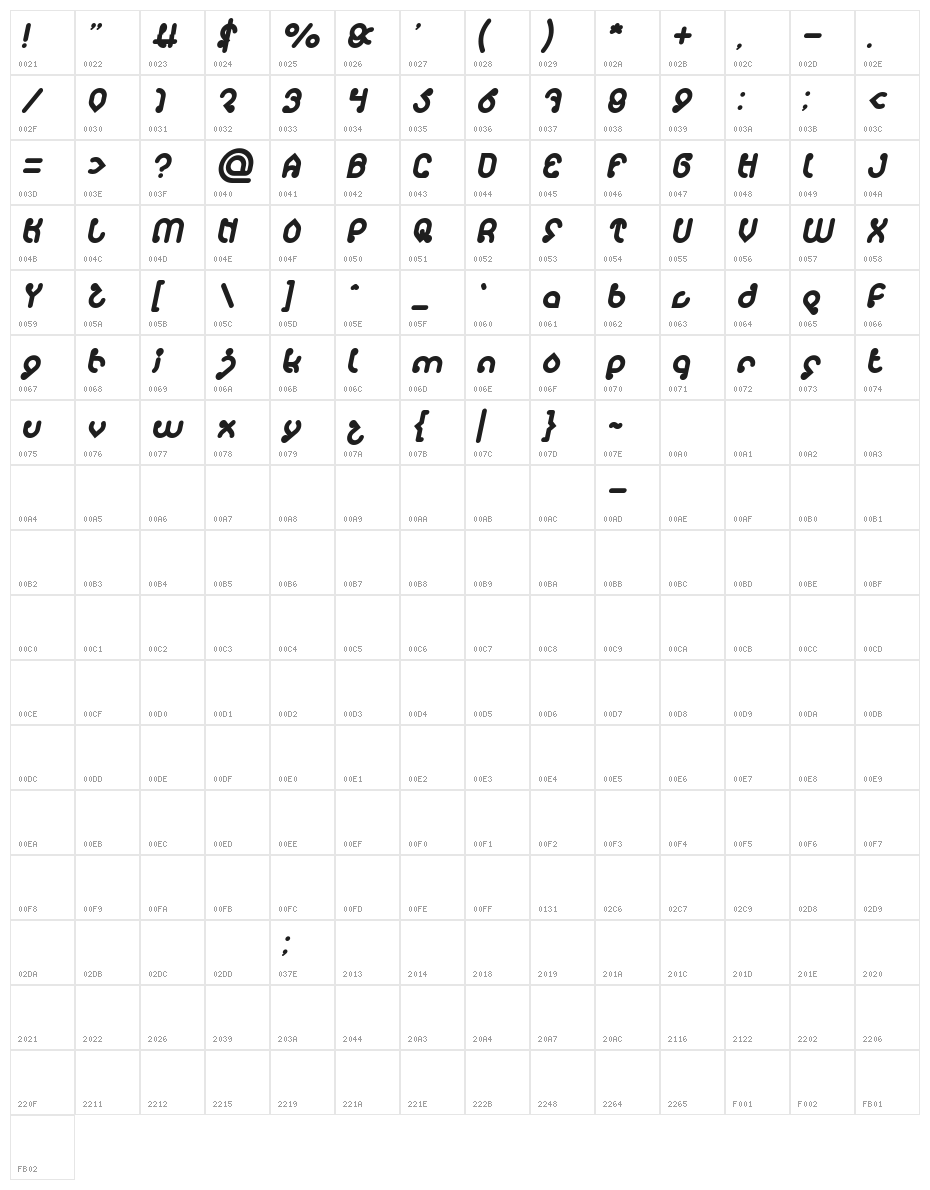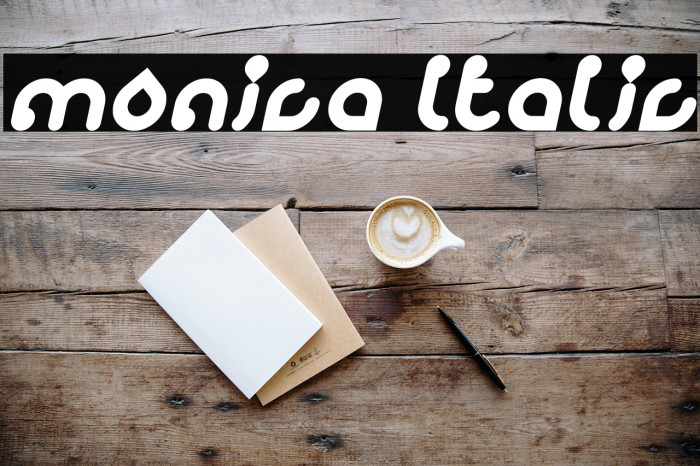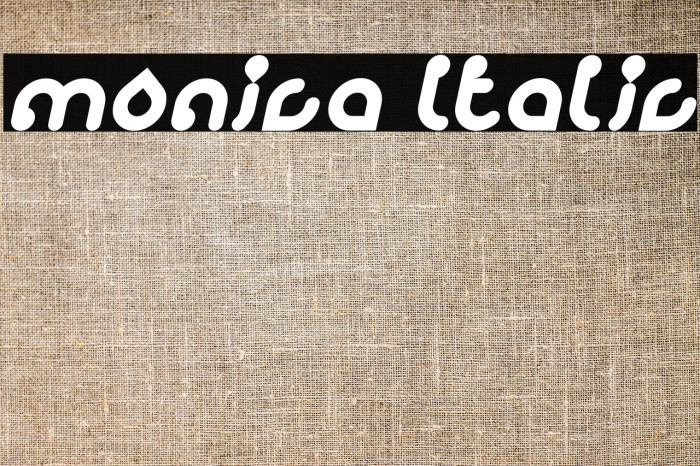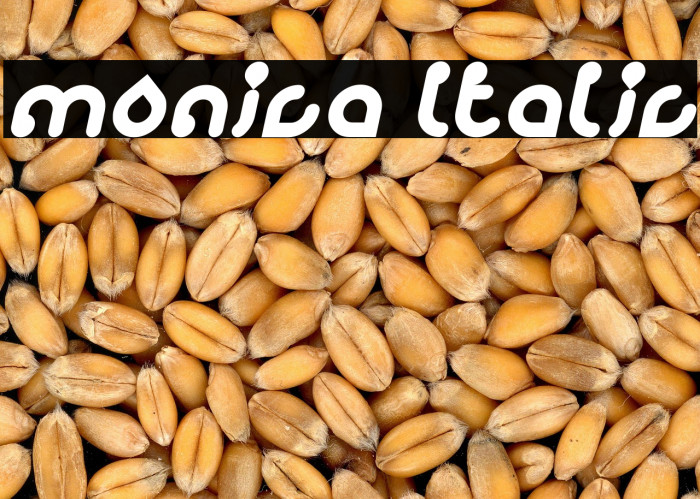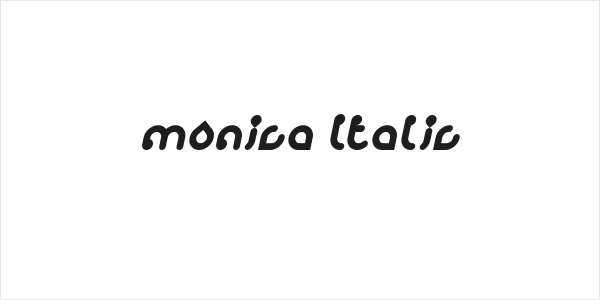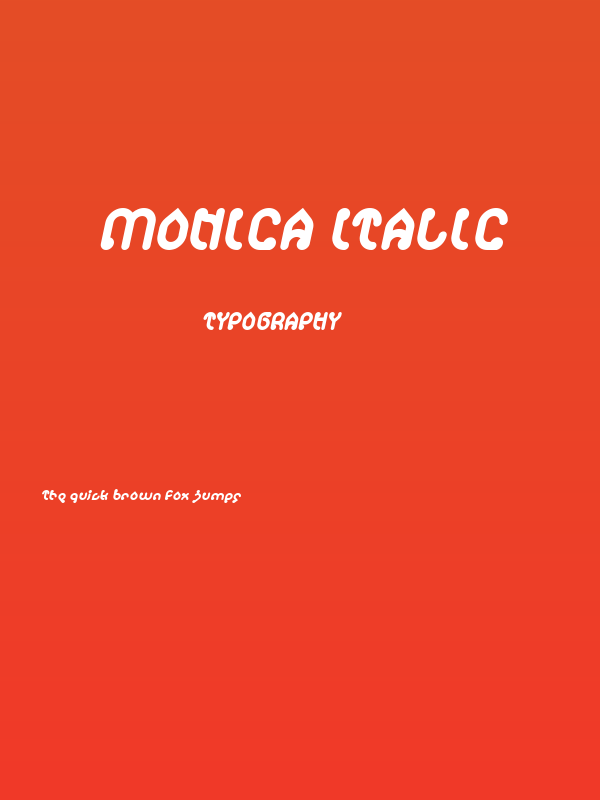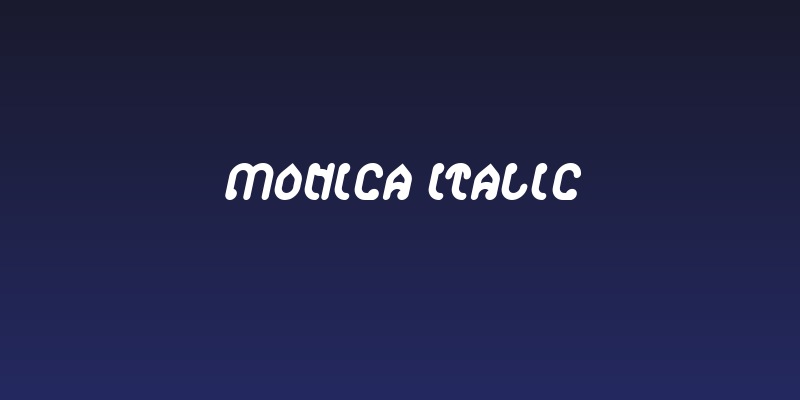
monica Italic Font
monica Italic Description
This font features a playful and bold design with a distinct italic slant, giving it a dynamic and energetic appearance. The characters are rounded and thick, with a consistent stroke weight that adds to its boldness. The overall style is informal and friendly, making it suitable for creative and fun projects. The uppercase and lowercase letters maintain a cohesive look, while the numerals and special characters complement the alphabet with their rounded forms. This font's unique style makes it stand out, perfect for grabbing attention in various design contexts.
| Overall Style | Playful, Energetic |
| Proposed Projects | Ideal for children's books, playful branding, posters, and creative invitations. |